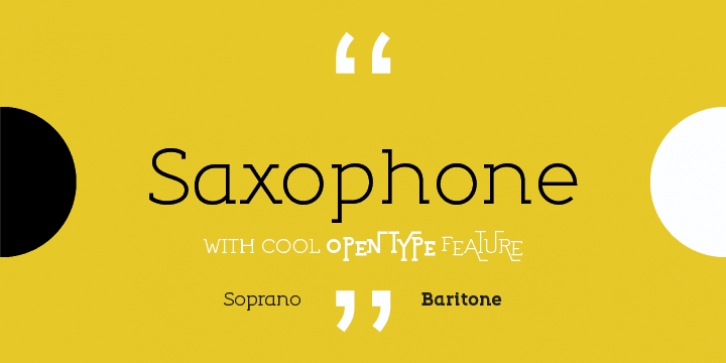
Saxophone is a slab serif font family. This typeface has two styles  and was published by Tour de Force Font Foundry.
With lively Stylistic Alternatives in capital letters, Saxophone font family is an metaphorical equalent of the instrument which can be used almost in all music genres.
Saxophone Soprano·